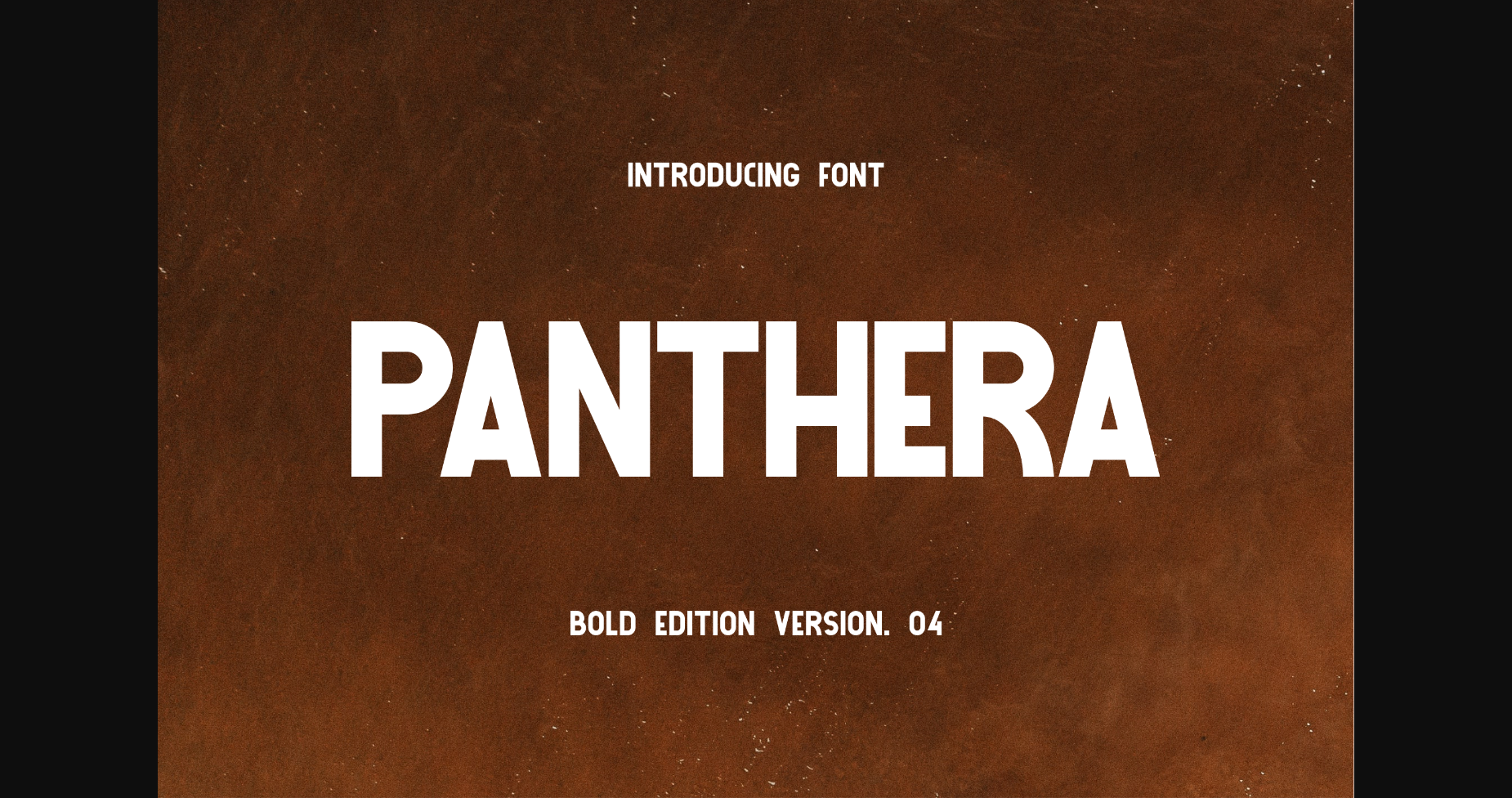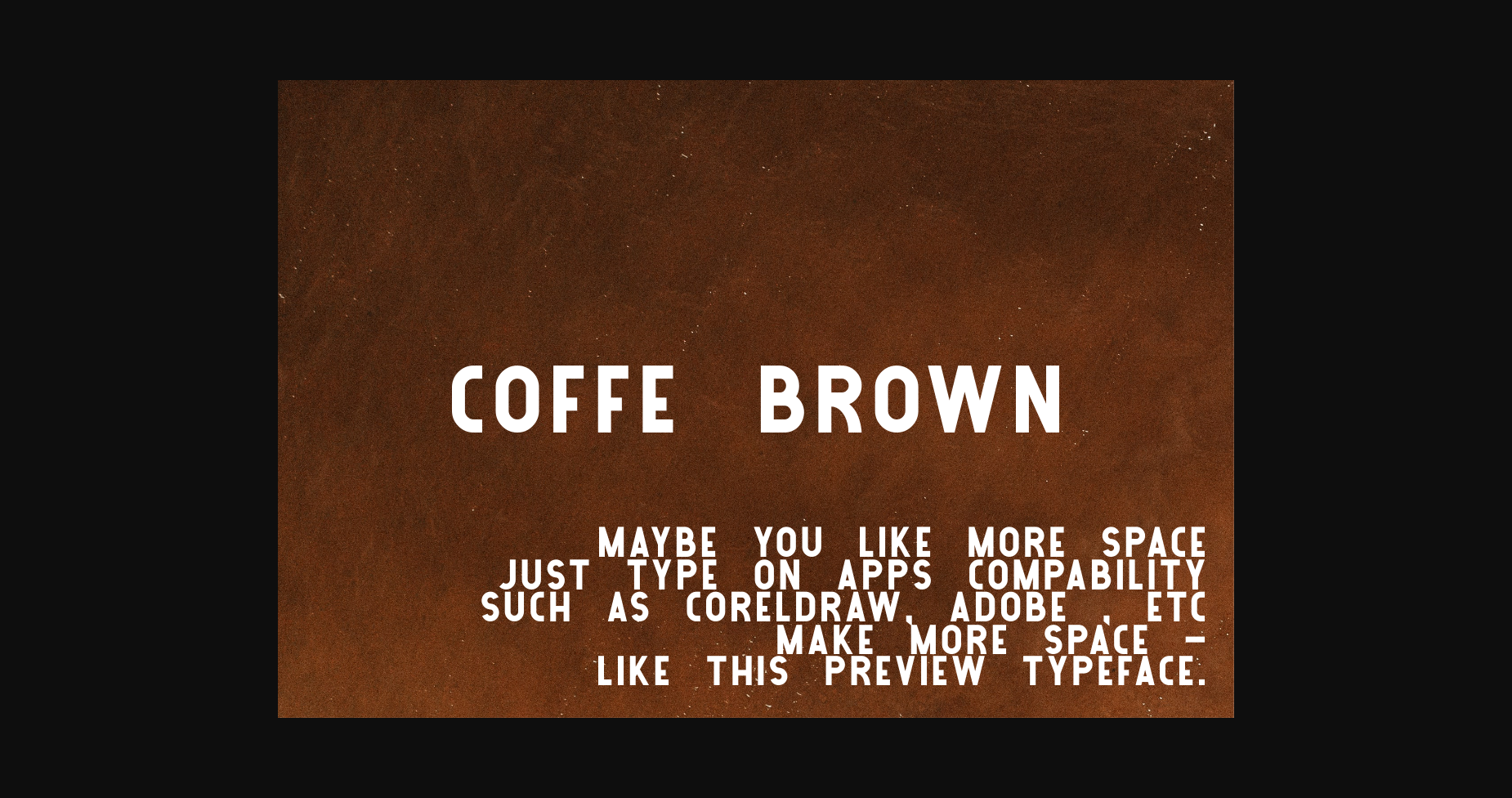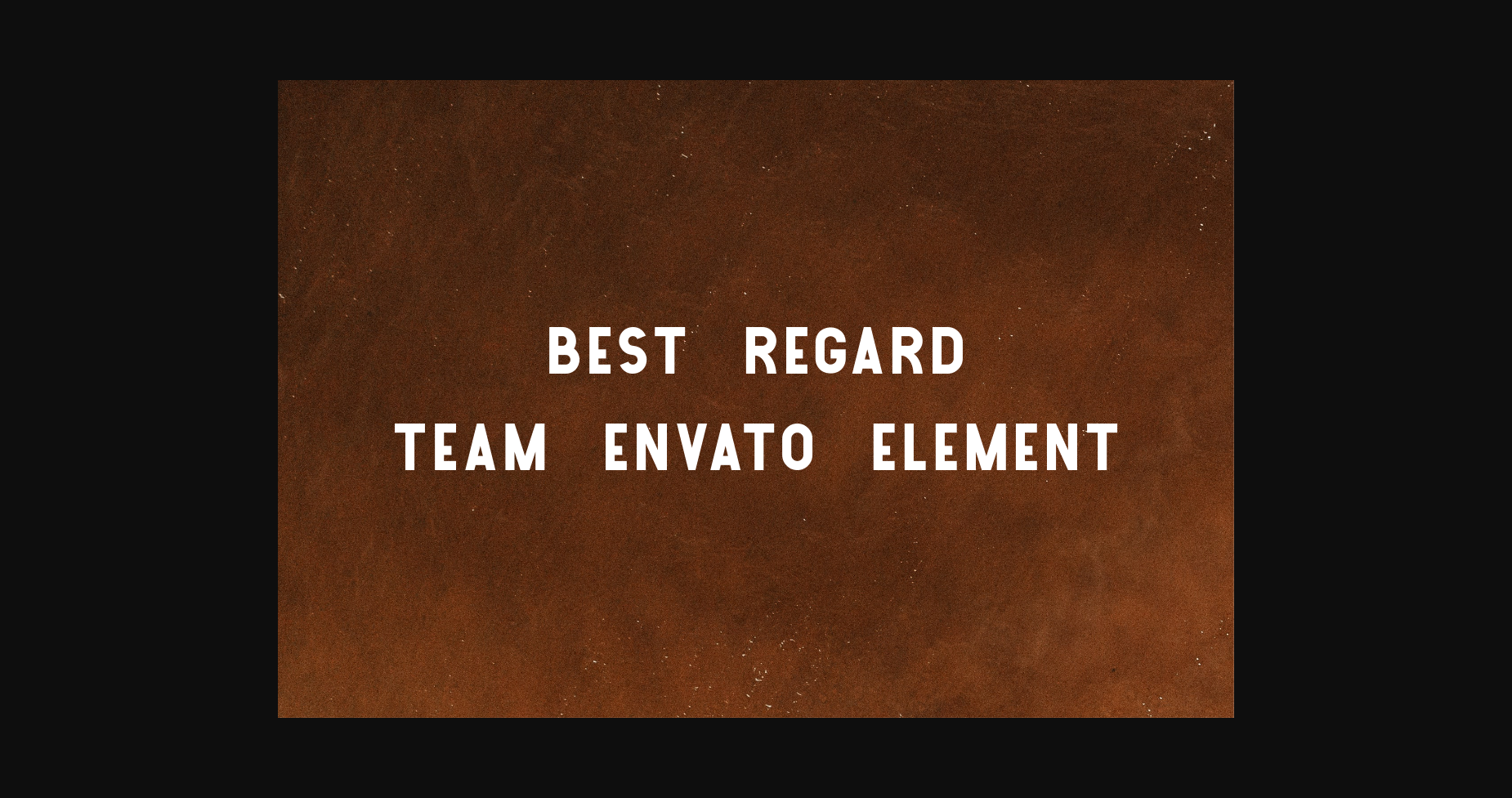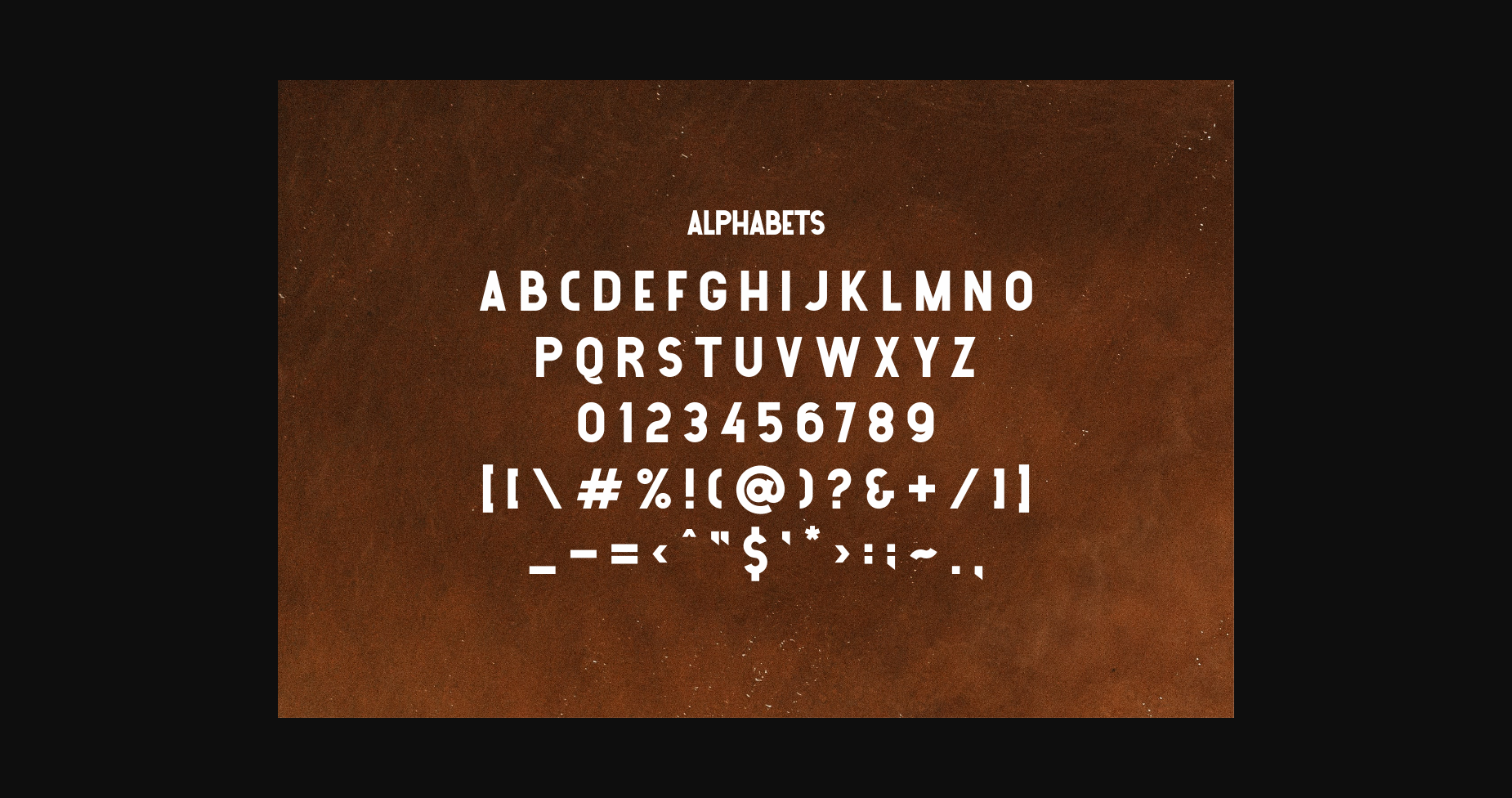
Panthera is a cool and modern all-caps sans-serif font. No matter the topic, this font will be an incredible asset to your fonts’ library, as it has the potential to elevate any creation.